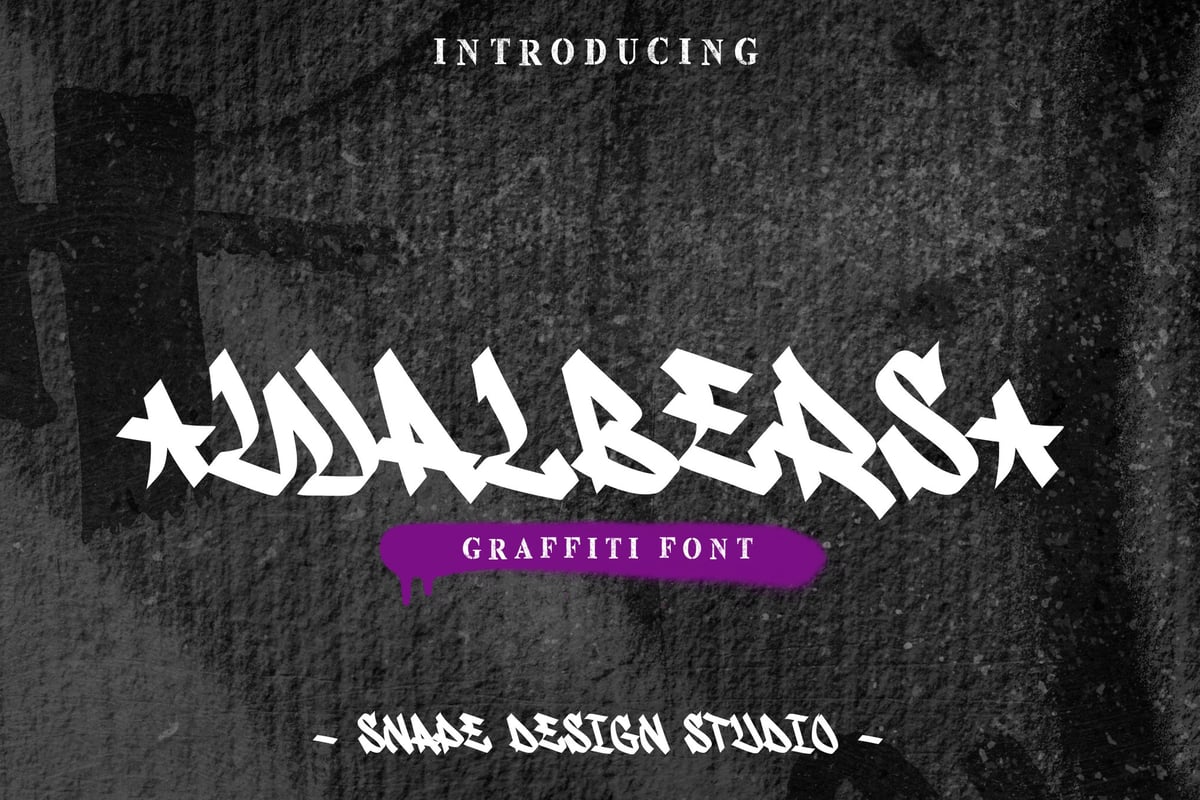
Walbers - Graffiti Font
Transform your designs with authentic street art style using this bold graffiti-inspired display font. WALBERS captures the raw energy of typical street art calligraphy and graffiti tag aesthetics, making it perfect for any project that demands urban authenticity and visual impact. This versatile typeface excels in movies, documentaries, films, logos, posters, games, book covers, headlines, titles, and countless other creative applications. Watch your designs come alive with the distinctive edge...